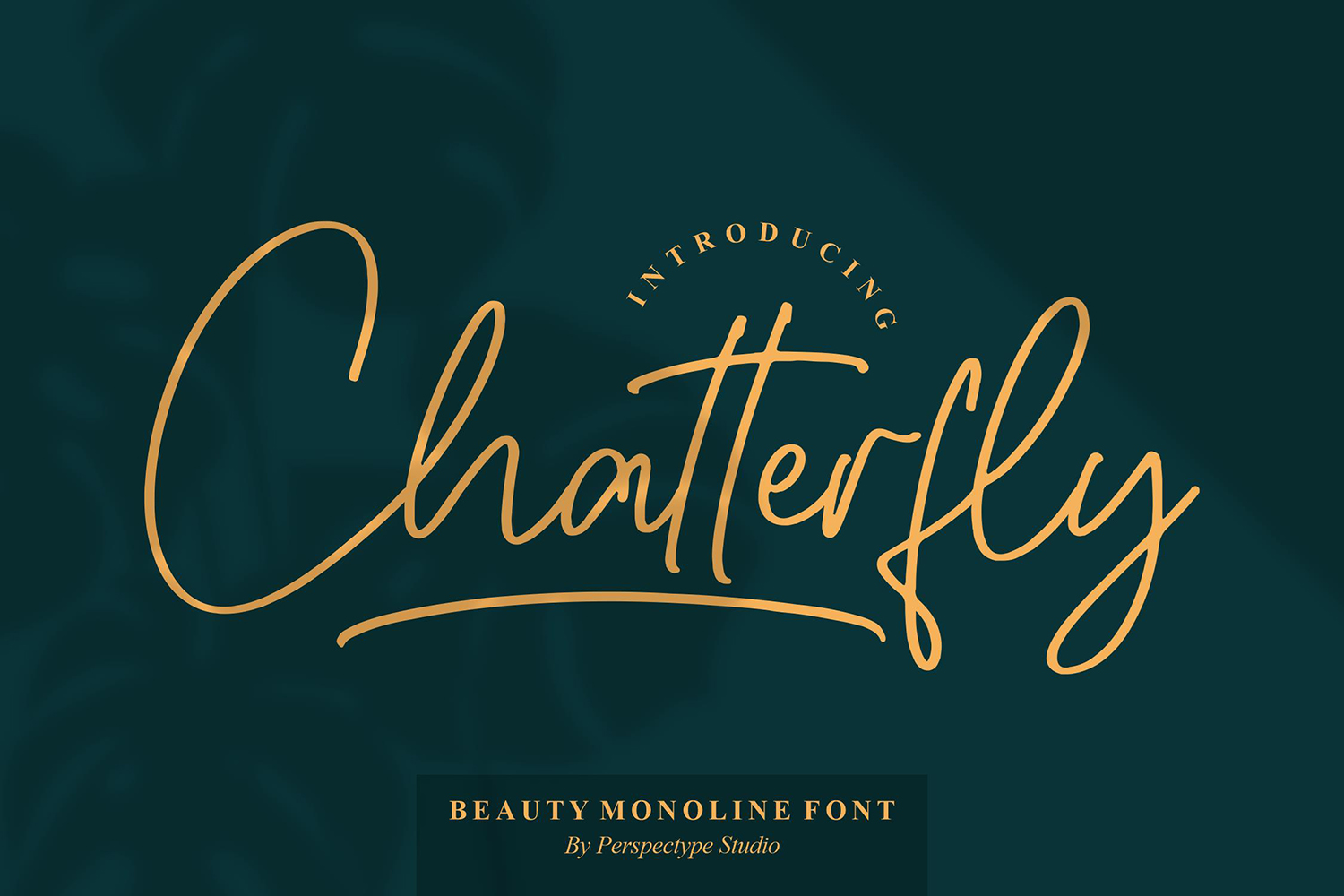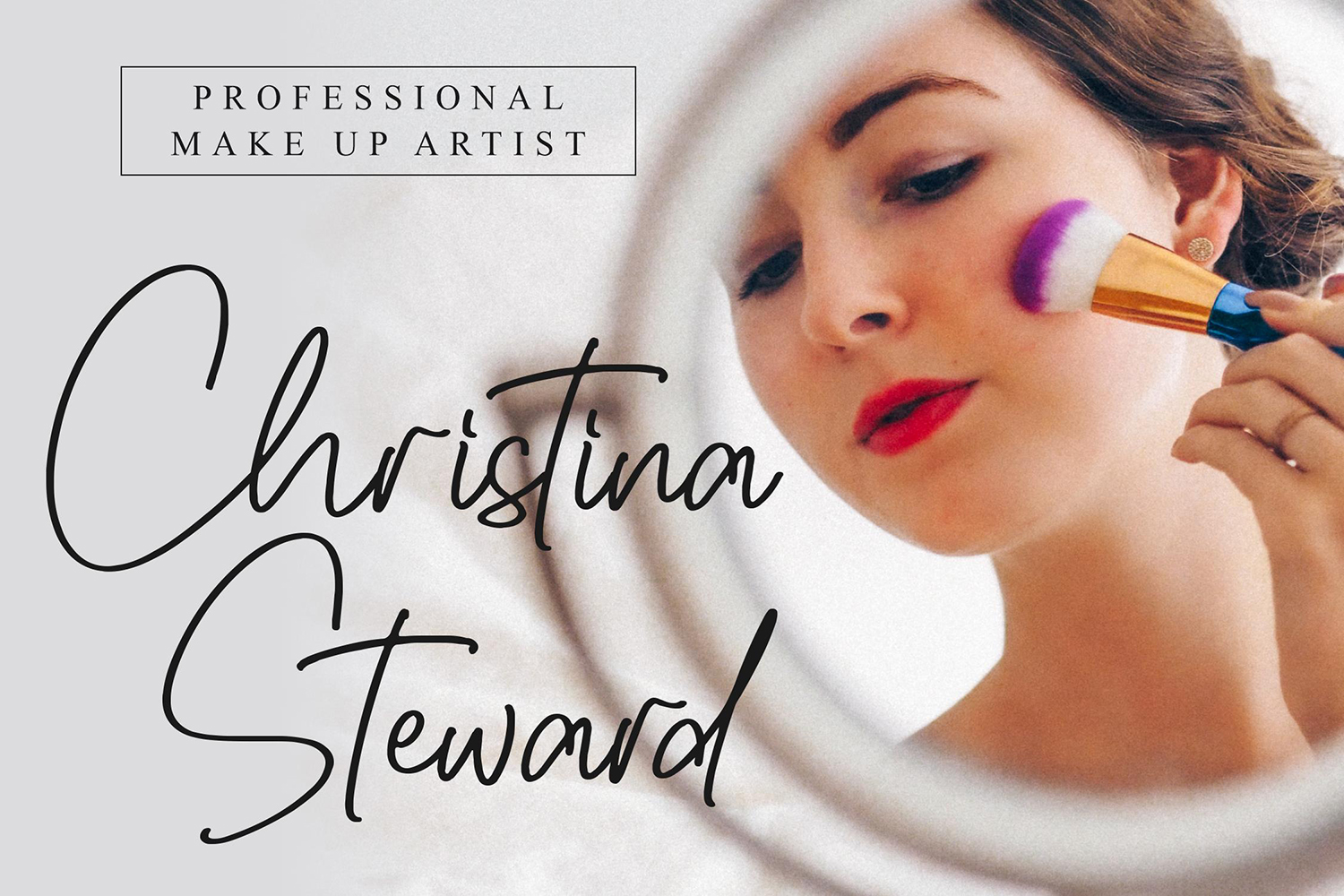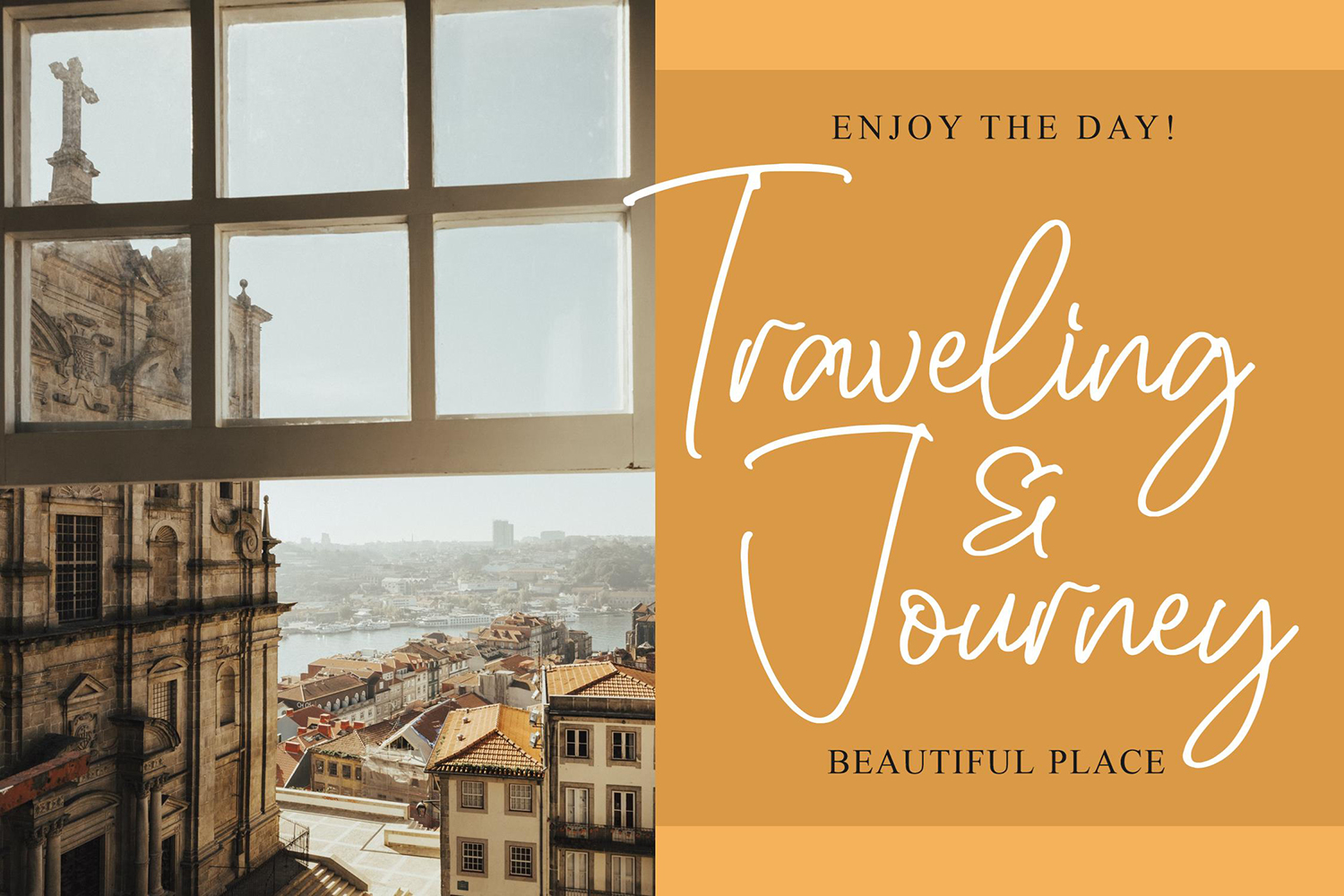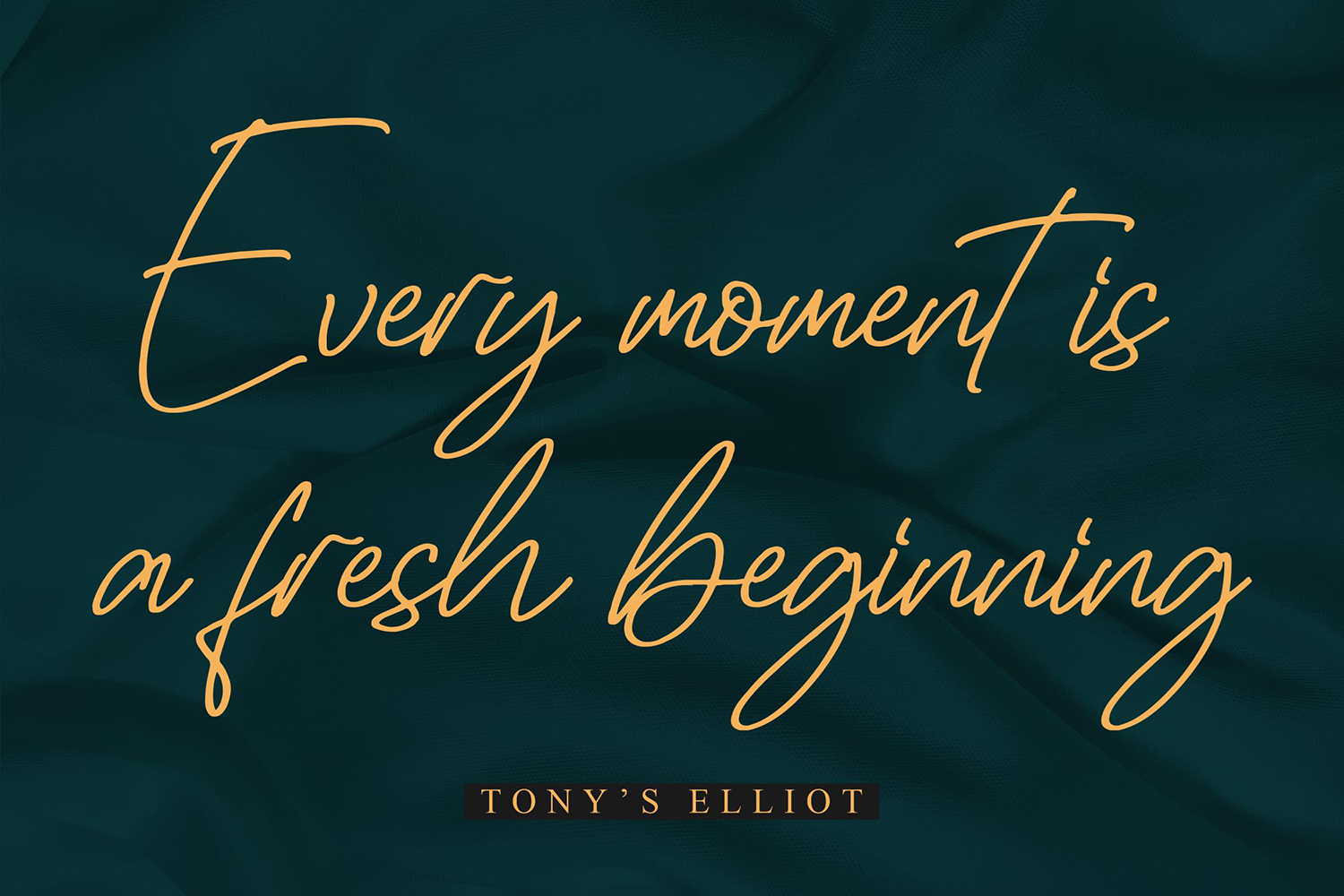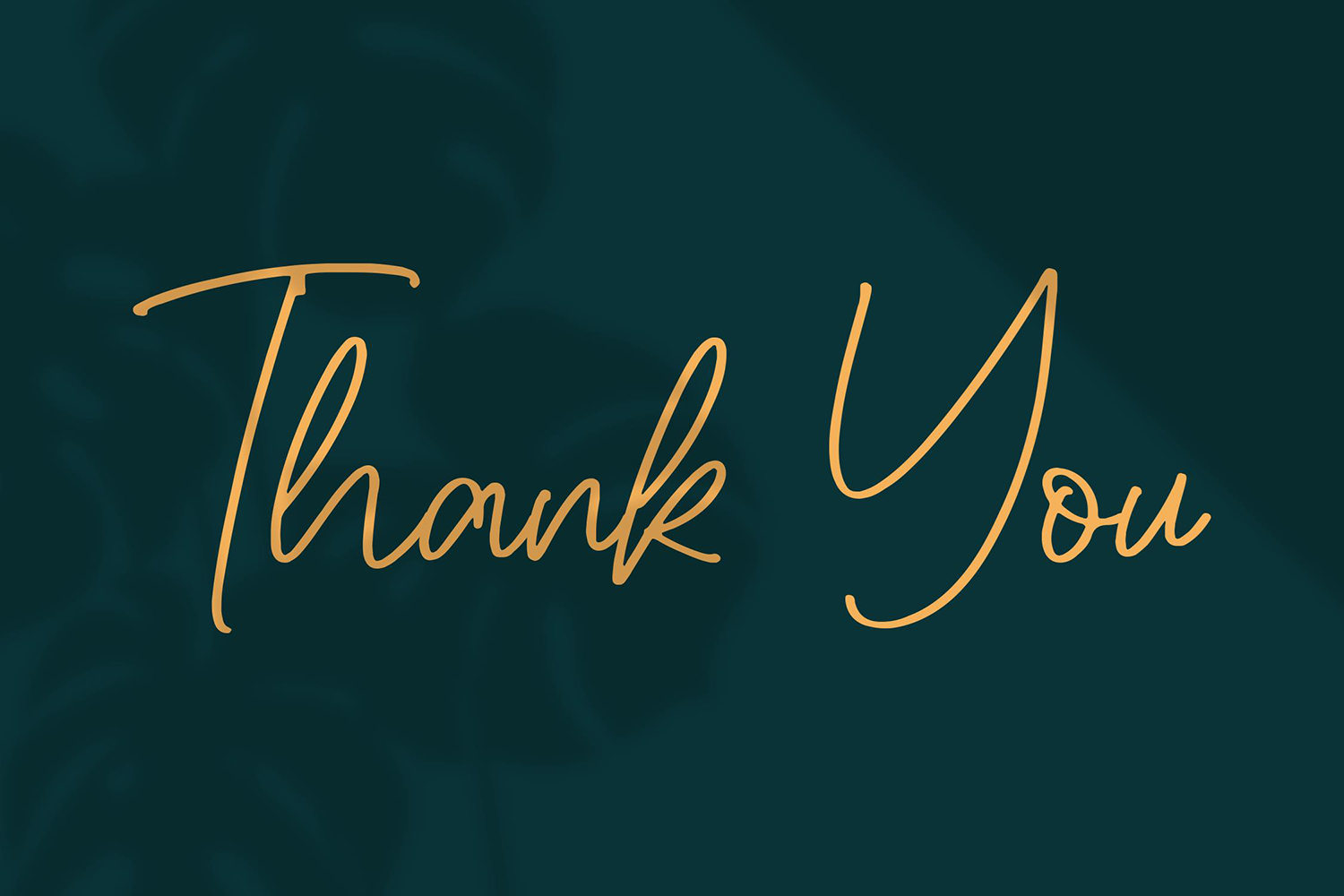
Chatterfly Free Font
Chatterfly Free Font is an elegant and graceful monoline font, evoking feelings of beauty and refinement. Its fluid strokes and delicate curves dance gracefully across the page, captivating the viewer with its enchanting allure. The font is a true work of art, imbued with emotion and passion, inspiring feelings of wonder and admiration. It’s the perfect choice for any project that requires a touch of beauty and elegance.